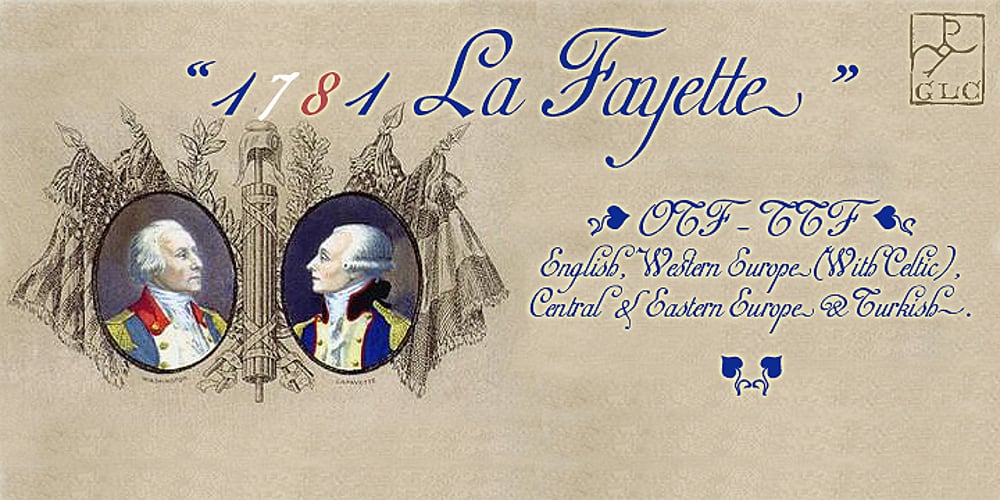
1781 La Fayette Font Family was designed by published by GLC. 1781 La Fayette contains 1 styles and family package options. This font was inspired from the numerous font-types looking like Hand-carved in the 1700’s. The capitals are mainly inspired from the font carved by Fournier in year 1781, the year of the famous American and French decisive victory at Yorktown, and drawn by Benjamin Franklin himself, and the lower cases are inspired from the well known “bâtarde coulée” style, ornamented with final loops and enriched with alternates and ligatures. The font is available for English, Western Europe (including Celtic) Icelandic, Baltic, Eastern Europe and Turquish languages.